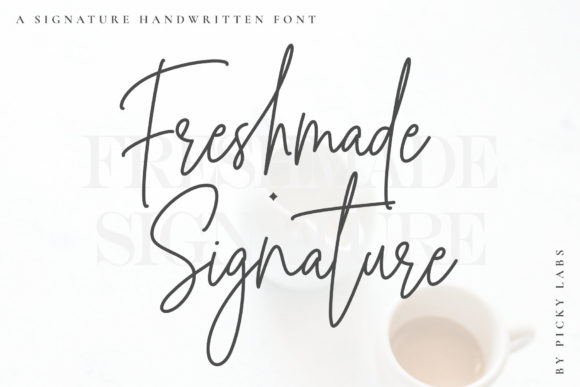
Freshmade Signature Font
Add a touch of elegance and sophistication to your branding with our Freshmade Signature Font. This exquisite script font is crafted with delicate curves and flowing strokes, giving your designs a unique and captivating look.
Indulge in the beauty of handwritten typography with Freshmade Signature. Its graceful flourishes and charming personality will elevate your logos, t-shirt prints, and creative projects to new heights.
Whether you're seeking a classic touch for your wedding invitations or a touch of whimsy for your scrapbook pages, Freshmade Signature will effortlessly enhance your creations. Its versatility shines through, adapting seamlessly to a wide range of design aesthetics.
Experience the transformative power of Freshmade Signature and let your imagination soar. Its enchanting presence will leave an unforgettable impression on your audience, making your designs truly captivating. Immerse yourself in a world of endless possibilities with this remarkable font.